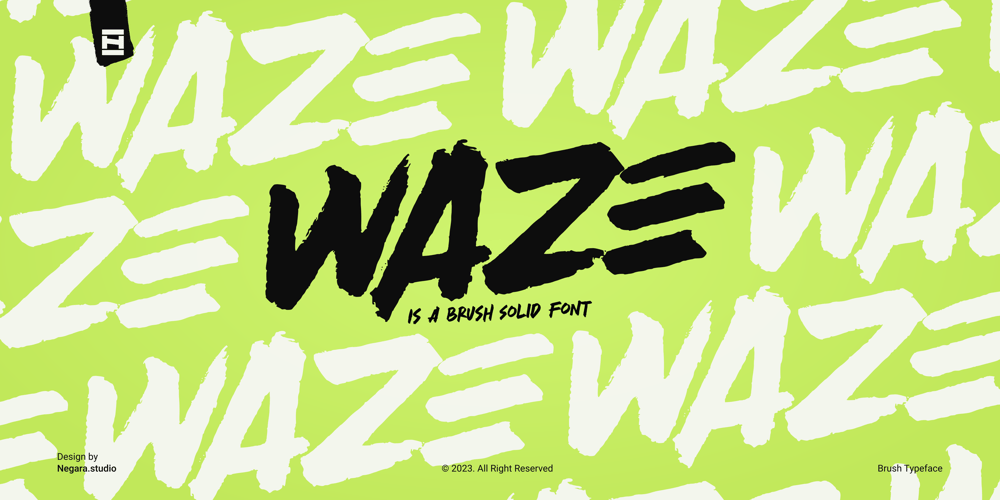
Waze Font Family was designed by Anugerah Negara and published by Negara Studio. Waze contains 2 styles and family package options. IntroducingWAZE-Font brush solid-WAZE is a brush solid font. It is great for branding, packaging, quotes, logos, t-shirt designs, tote bag designs, cards, banners, social media, and more.What’s included?WAZEFeatures: Uppercase Lowercase Numeral Multilingual Support Punctuation I hope you love it.regards,Anugerah Negara